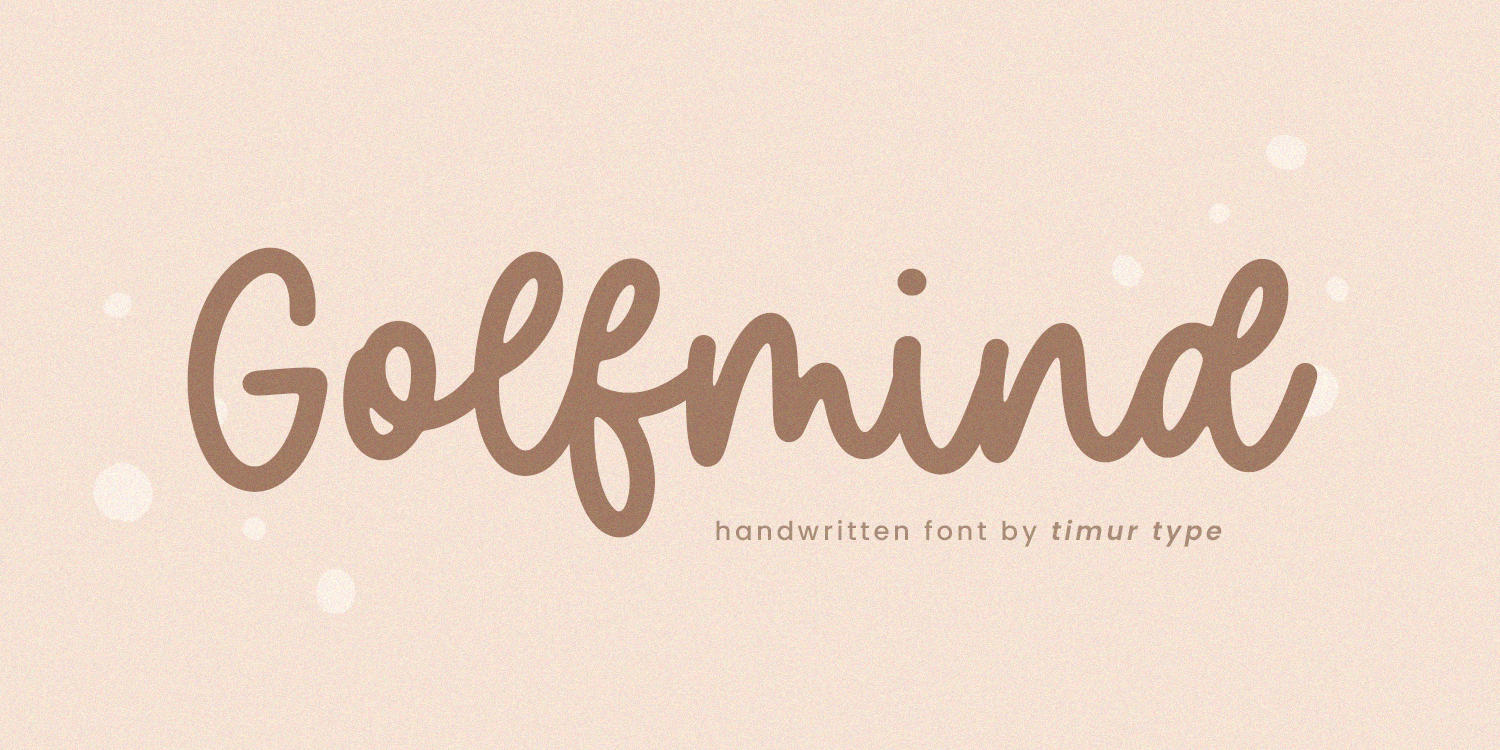
Golfmind Free Download
Golfmind Font Free Download
This refined typeface is perfect for golf courses, country clubs, professional golf tournaments, golf equipment manufacturers, luxury golf resorts, golf instruction academies, pro shops, golf magazines, caddie services, golf coaching programs, premium golf apparel, and exclusive golf memberships. The font's sophisticated design makes it ideal for projects that celebrate the mental precision, strategic thinking, and elegant traditions of golf as both a sport and a lifestyle pursuit.
Golfmind Font is exciting because it embodies the mental focus and strategic precision essential to golf excellence through its balanced letterforms and concentration-inspired character structure. The font's steady proportions and composed elegance create an atmosphere of calm confidence, strategic thinking, and refined sportsmanship, making it perfect for brands that want to convey expertise, tradition, and the sophisticated mindset required for golf mastery. Its concentrated personality ensures instant respect while maintaining excellent readability across various golf applications.
The Golfmind Font family includes multiple course variations: Light Approach, Regular Fairway, Medium Drive, Bold Championship, and Black Masters weights, each available in standard and italic versions. Special golf editions feature club alternates, course ornaments, and tournament symbols that enhance the font's sporting appeal, providing designers with comprehensive tools for creating authentic golf-focused communications.
Master the mental game with Golfmind Font Free Download – a typeface that represents strategic thinking and golf excellence. Whether you're developing golf course branding, tournament materials, or luxury golf marketing campaigns, this font delivers the refined sophistication and mental precision your projects need while ensuring exceptional performance and championship impact across all golf and country club applications.